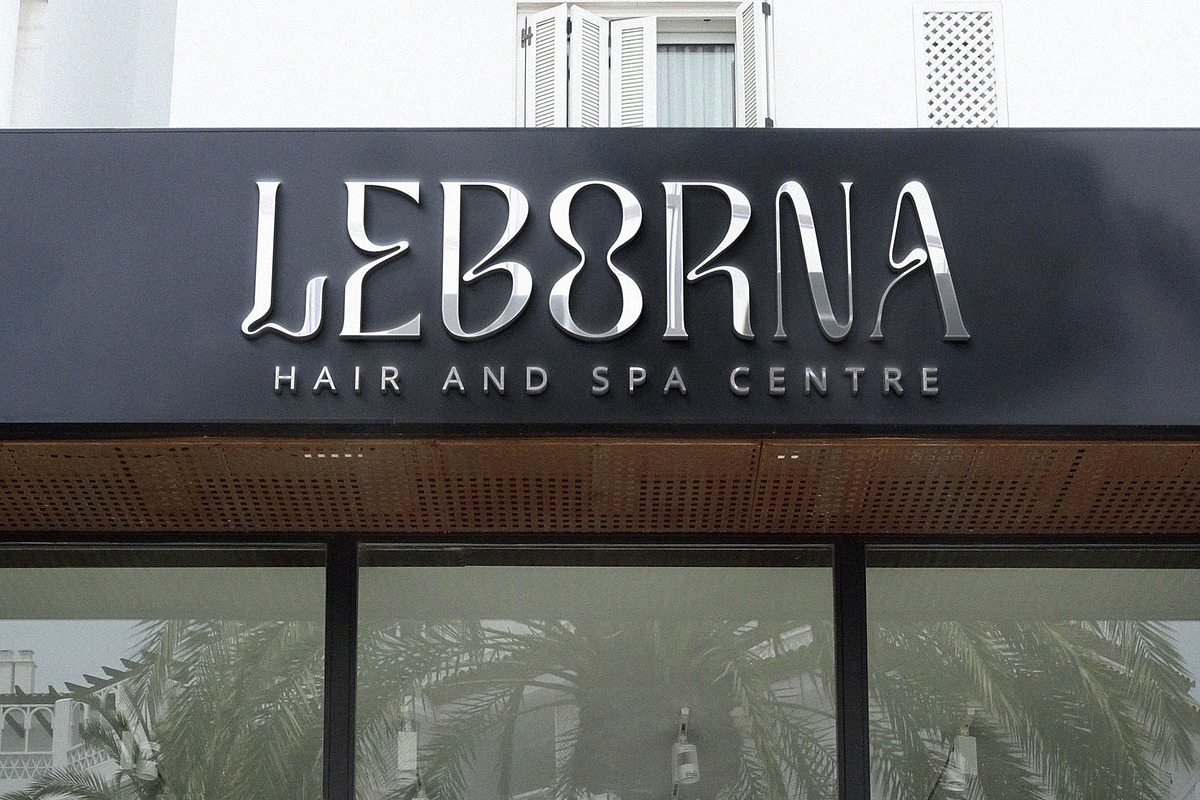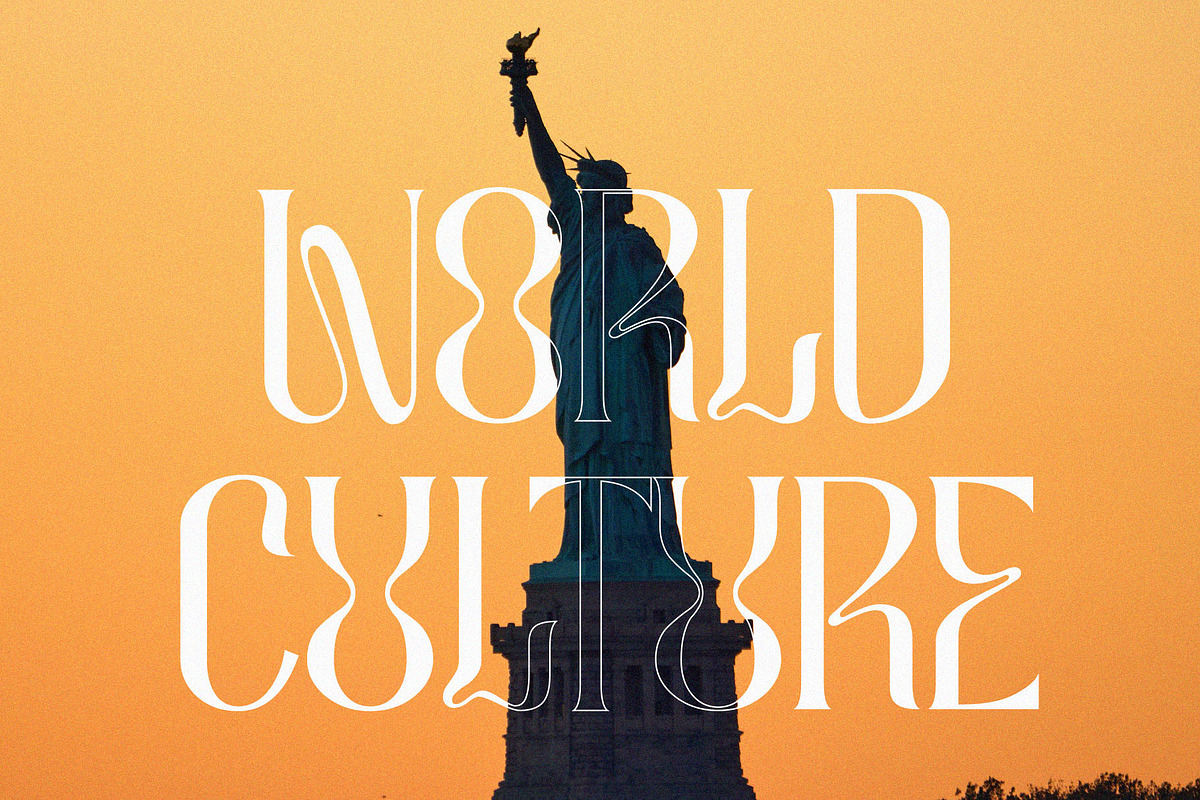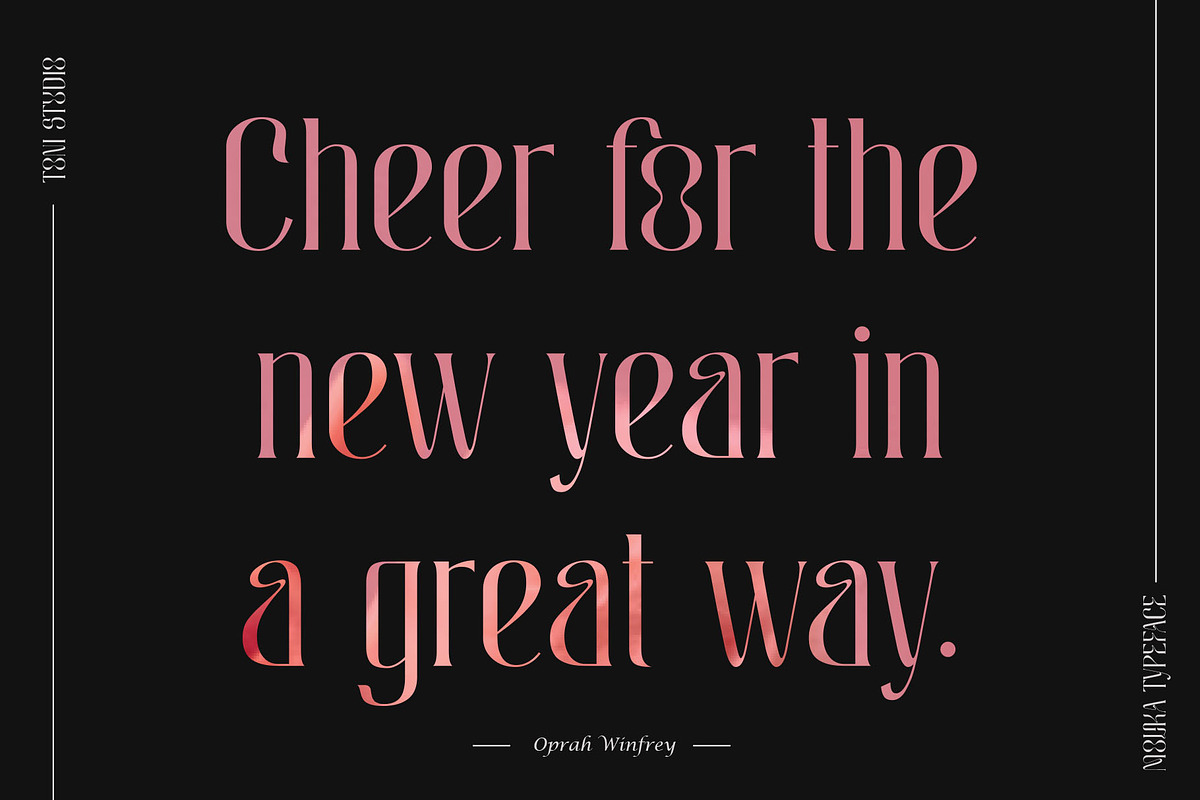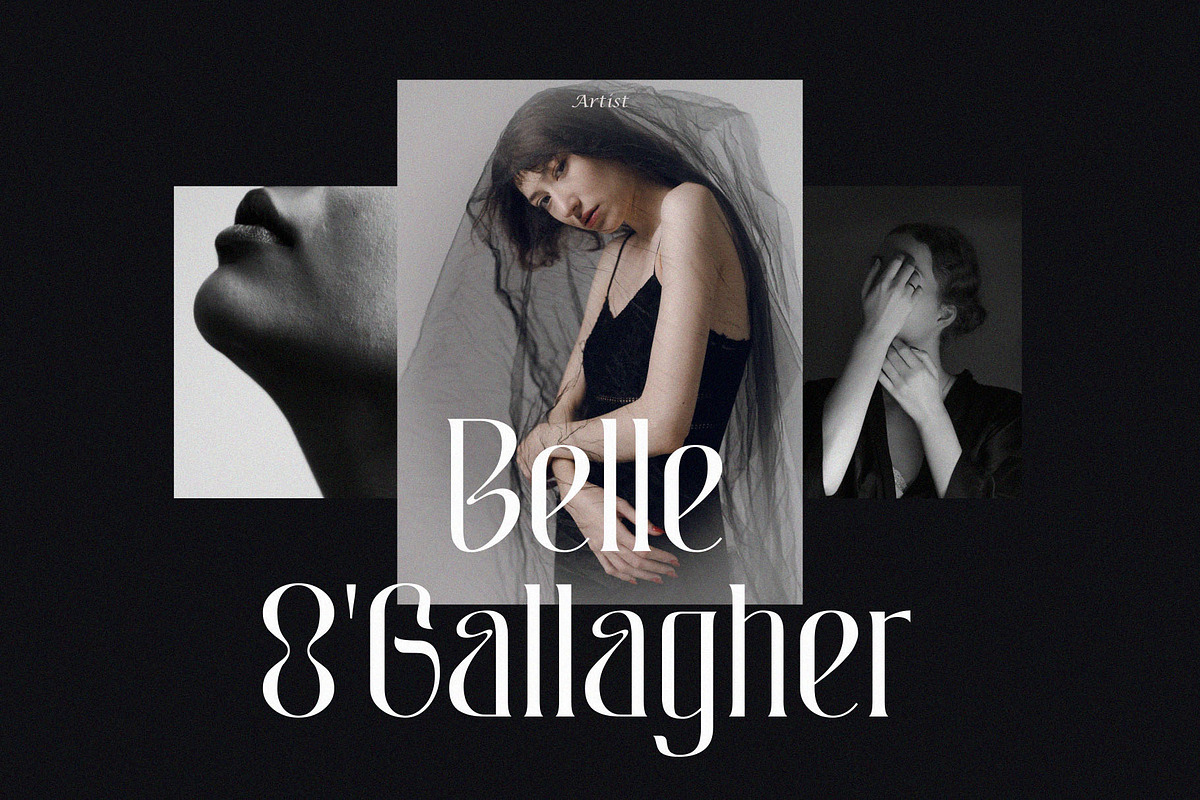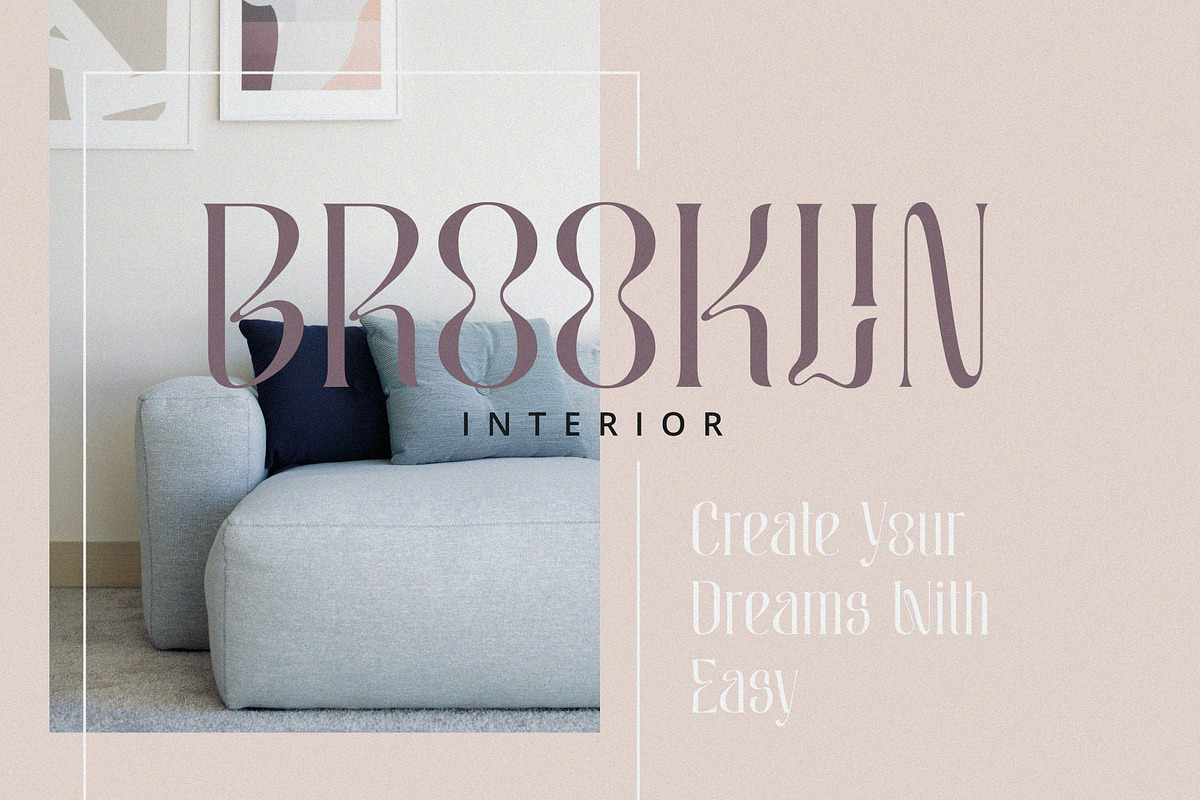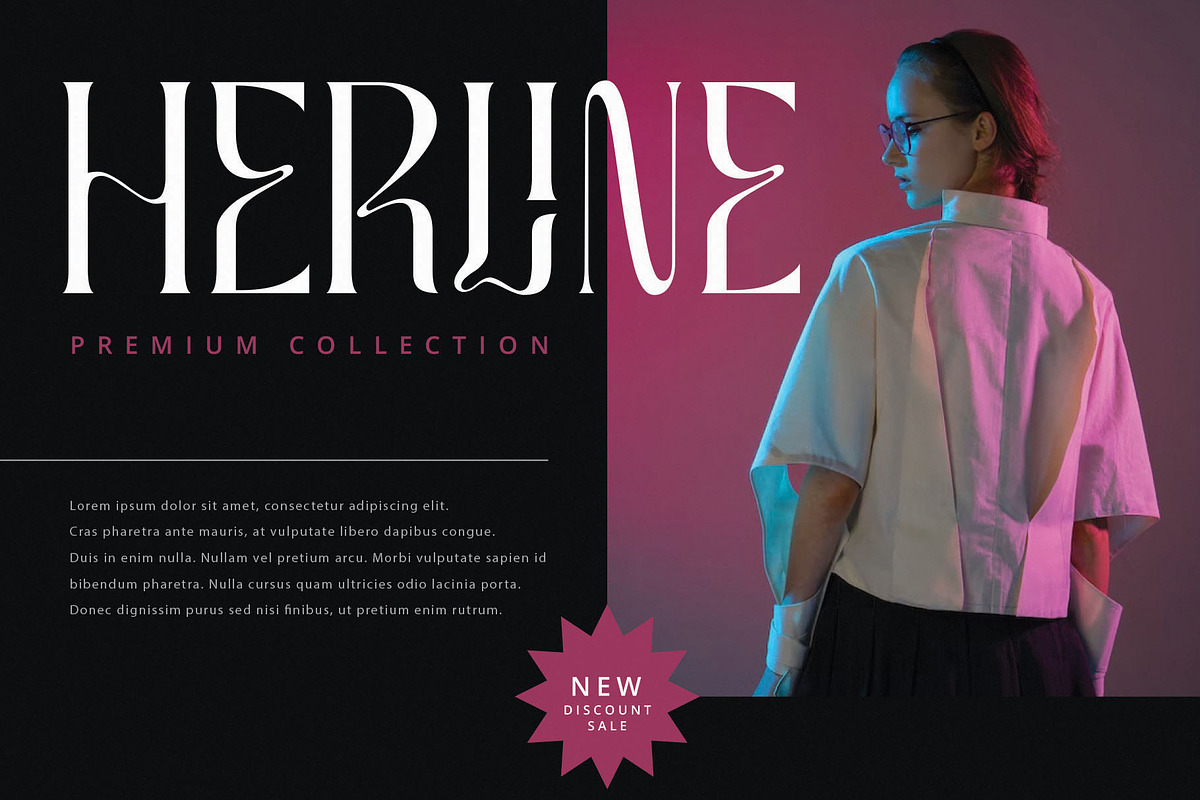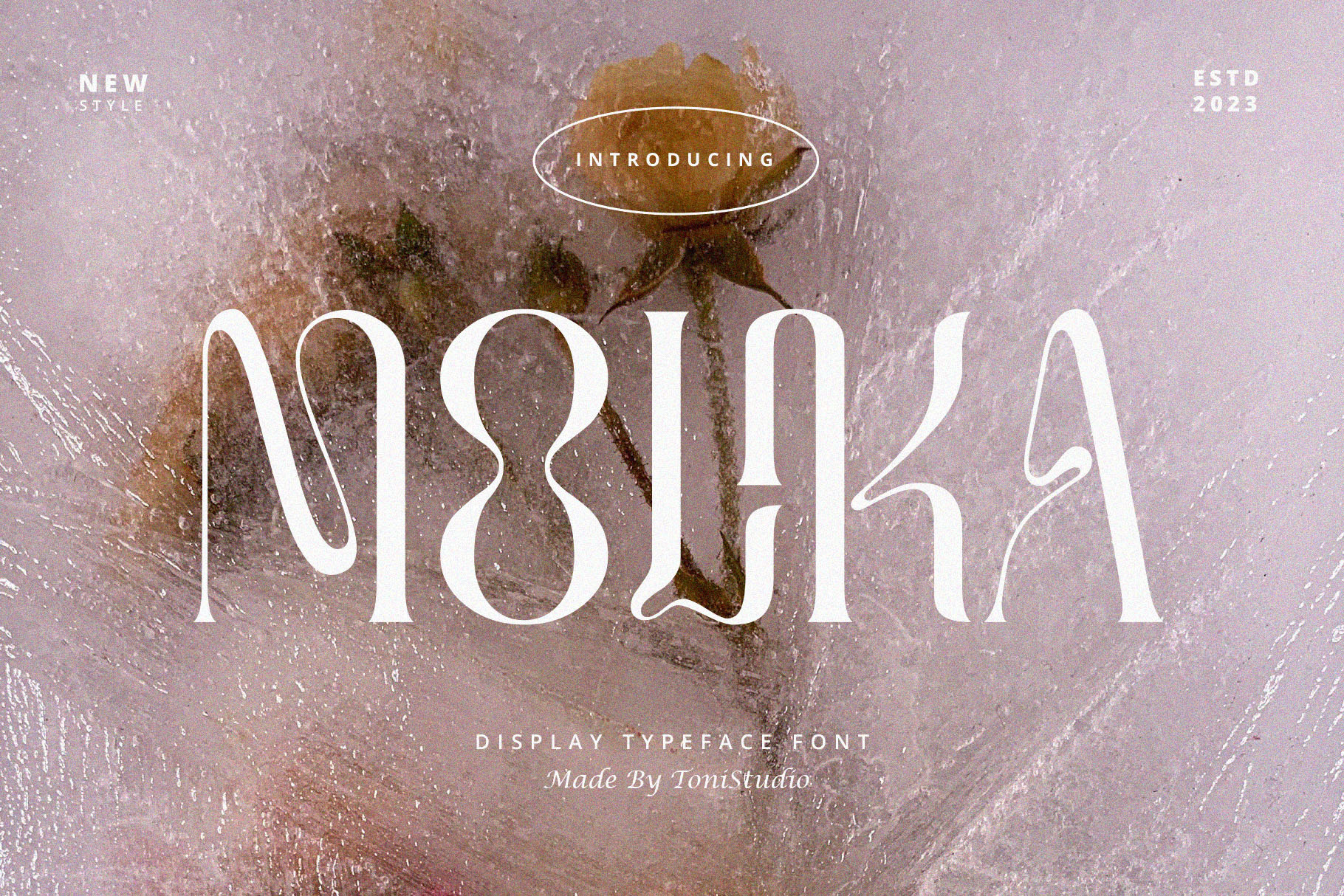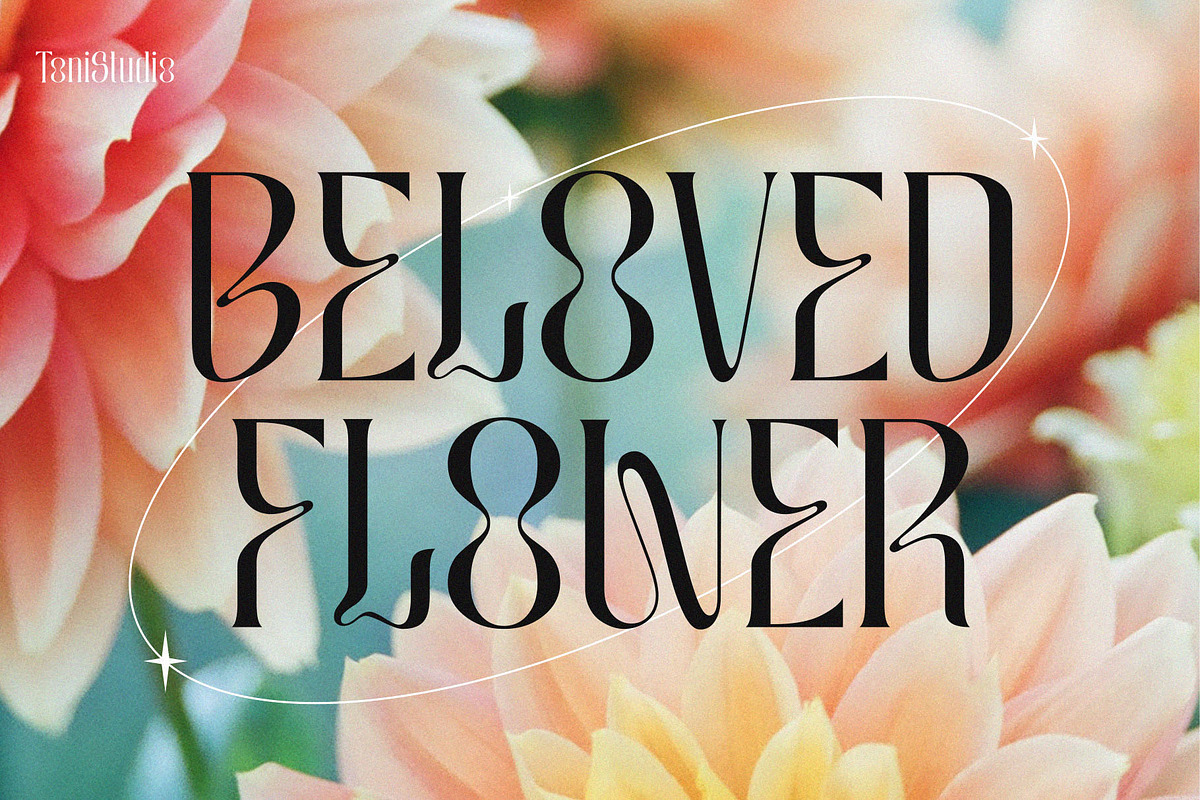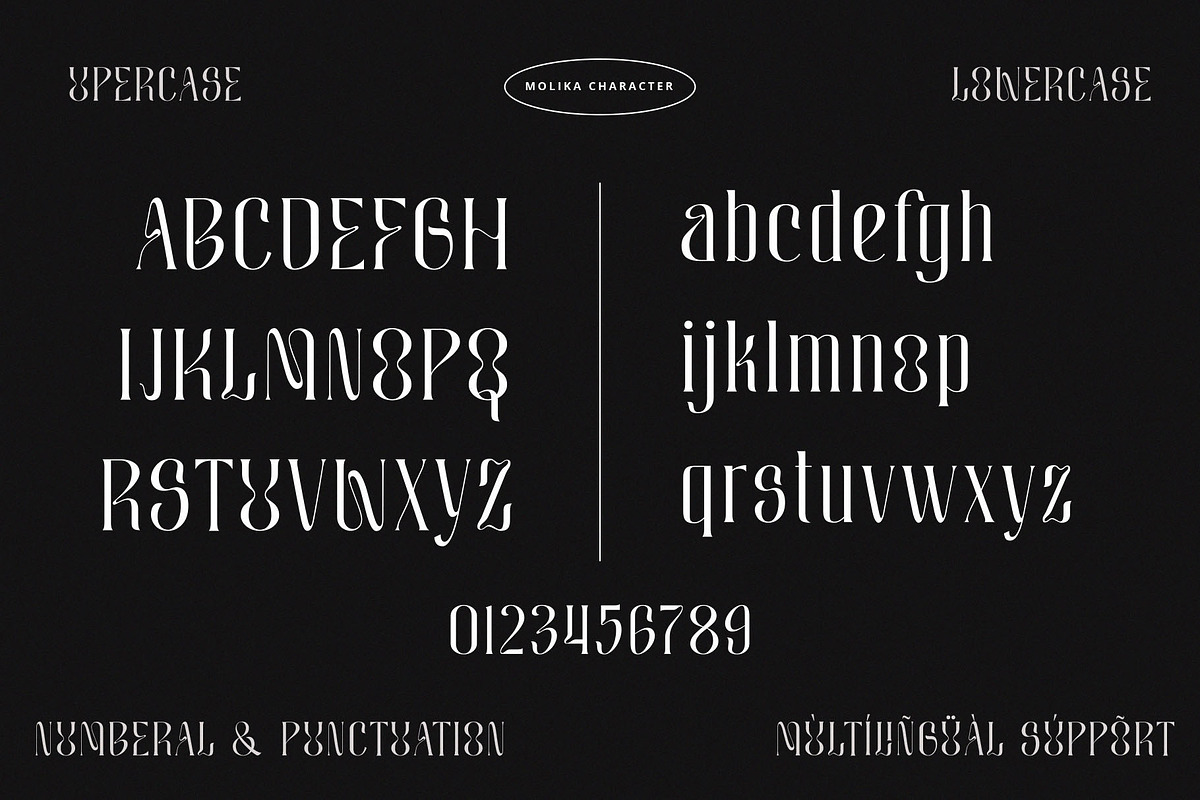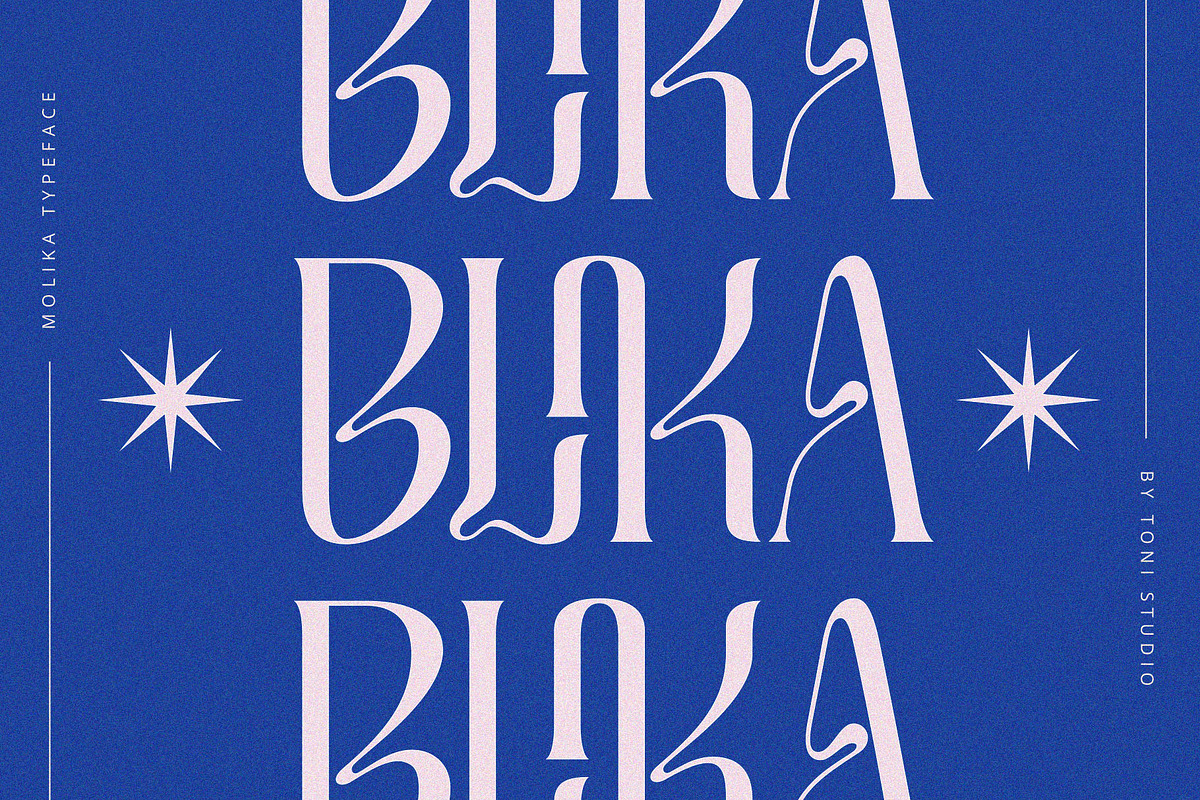
MOLIKA | Display Serif Typeface
MOLIKA is a unique experimental serif typeface with distinctive typefaces. With a mix of vintage and modern touches, it looks perfect when paired with a conventional serif/sans serif. It's perfect for bringing a unique visual look to any design, from modern logos to Instagram quotes, portfolio websites, editorial layouts, personal branding, wedding stationery, product packaging and more! These fit together and are ready to go together for your next design! For those of you who need an elegant, stylish, classy, chic and modern touch to your designs, this font is made for you!